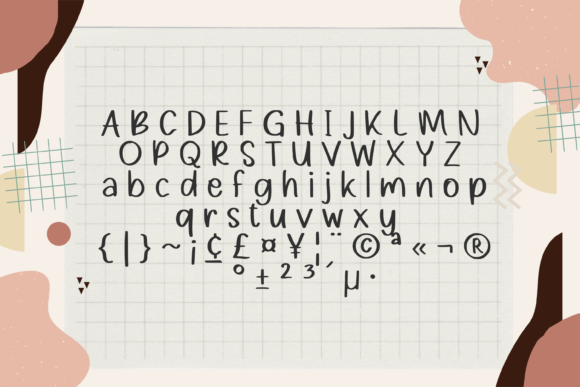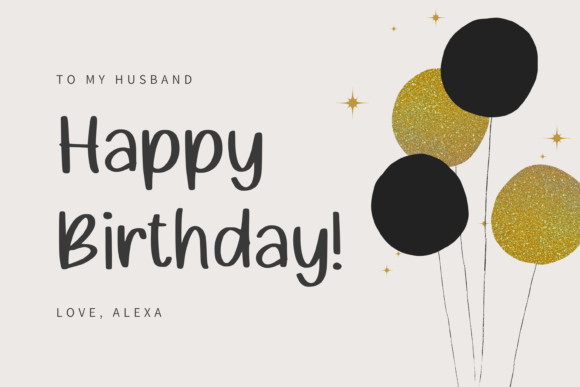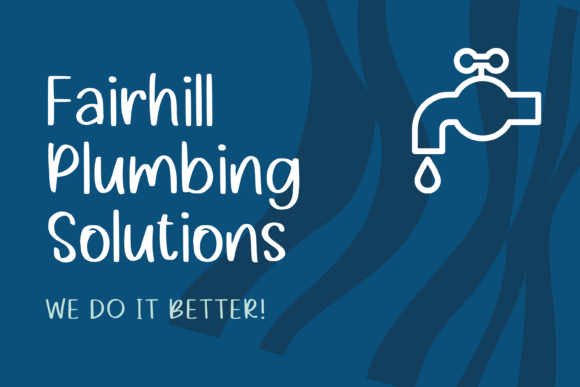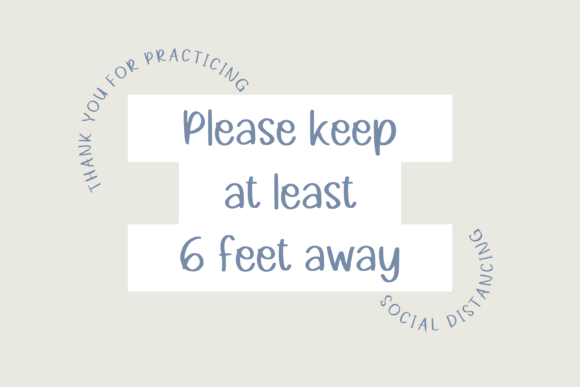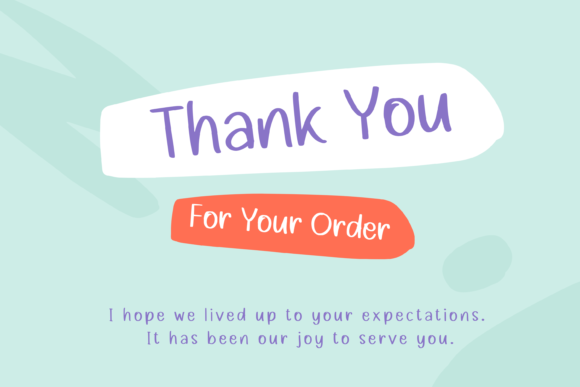
Danvilly Font
About Danvilly Font
Danvilly is a cute and simple lettered handwritten font, specifically crafted to enhance chalkboard quotes or teaching materials with its authentic and charming appearance. This font is designed to bring a realistic feel to your designs, making it a perfect choice for educational and creative projects.
The simplicity of Danvilly adds a clean and straightforward look to your text, making it suitable for conveying information effectively. Whether used for chalkboard quotes, educational materials, or any other teaching-related content, this font brings a friendly and approachable vibe.
In chalkboard quotes, Danvilly contributes to a cute and playful aesthetic. The handwritten style of the font adds a touch of authenticity, making the quotes feel personalized and inviting. The simplicity of the letterforms ensures legibility while maintaining a charming handwritten quality.
For teaching materials, Danvilly’s cute and simple design enhances the overall look of educational content. The font’s authenticity makes it engaging for students, creating a visually appealing learning experience. Its handwritten charm adds a touch of warmth to instructional materials.
The realistic feel of Danvilly makes it a suitable choice for designs that aim to replicate the look of handwritten text on a chalkboard. This authenticity contributes to a genuine and relatable visual experience, making the font versatile for a variety of creative applications.
In summary, Danvilly is more than just a font; it’s a cute and simple lettered handwritten design tool that adds authenticity and charm to your chalkboard quotes or teaching materials. Whether used in educational contexts or for creative projects, Danvilly brings a realistic and friendly touch to your designs.